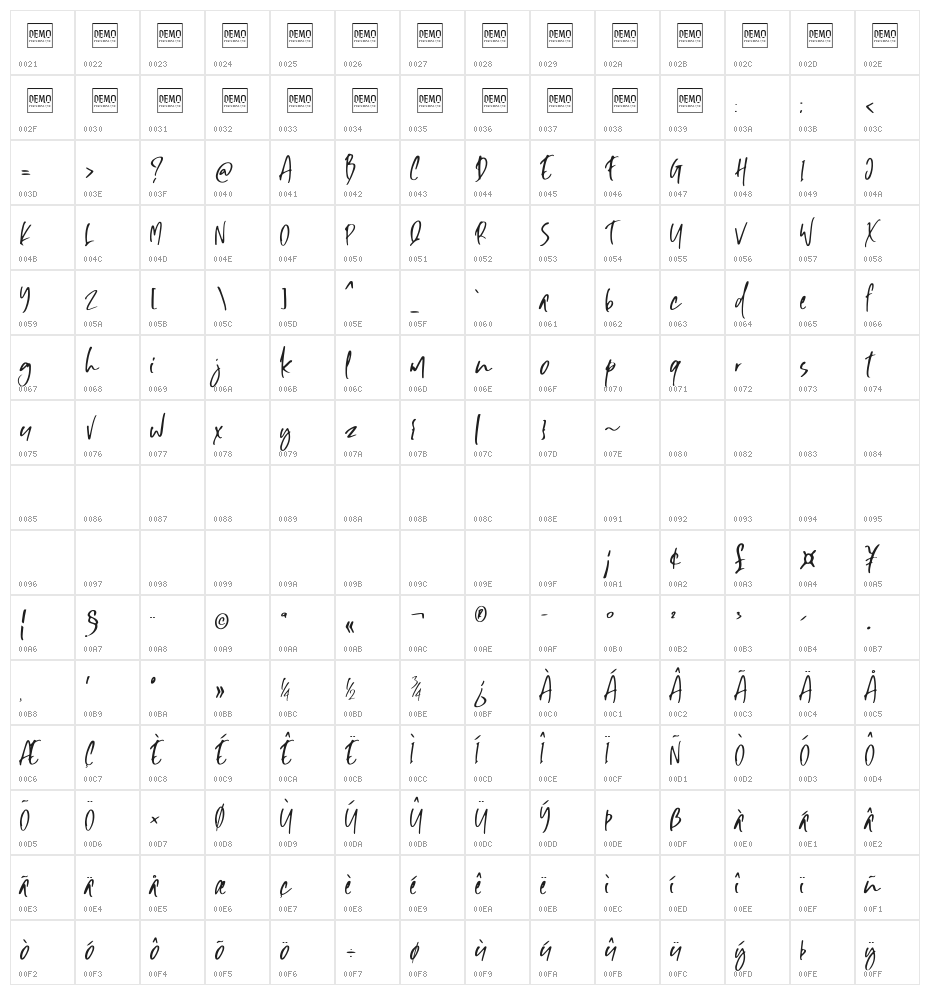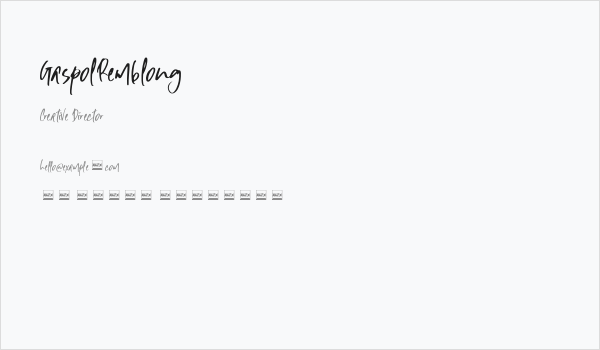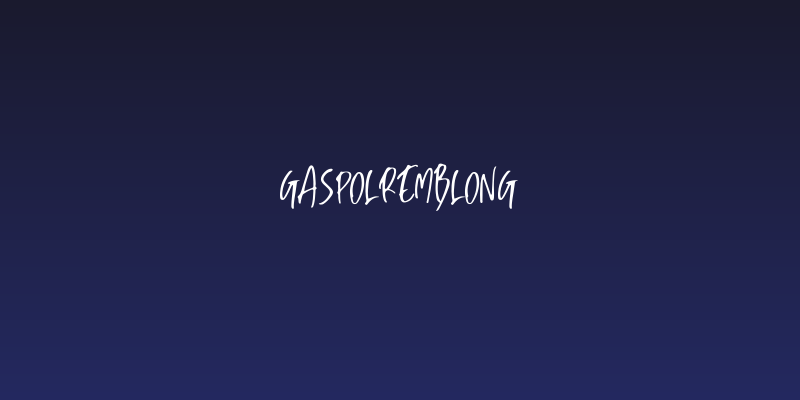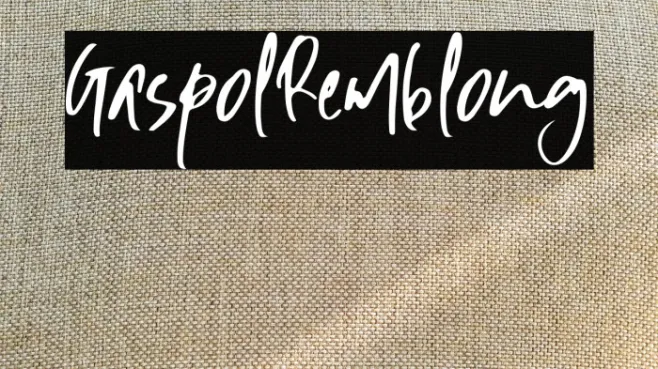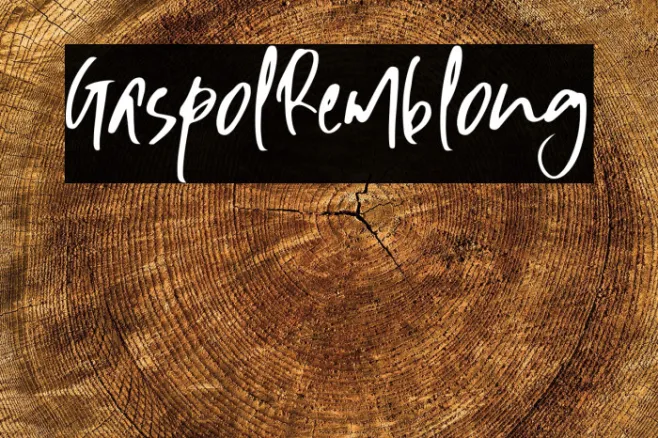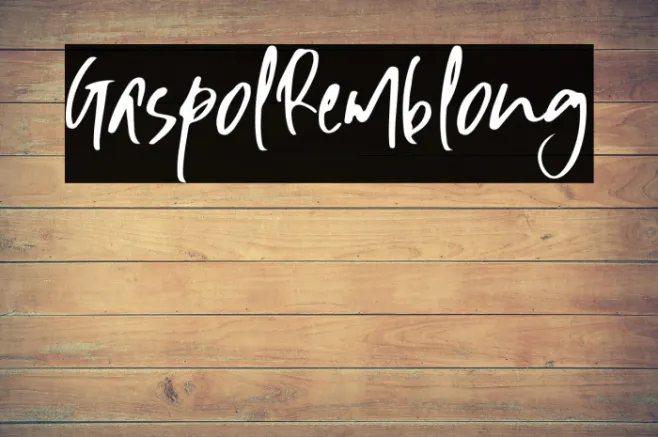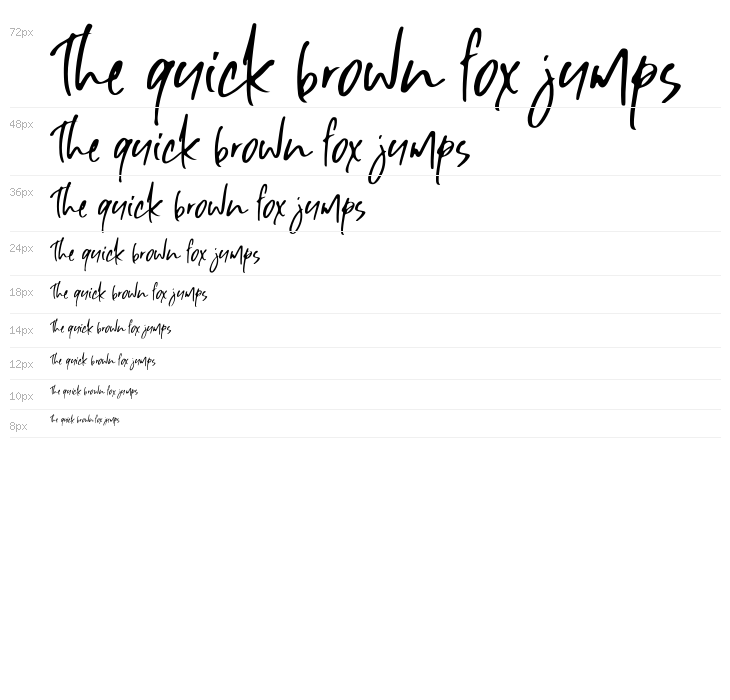
GaspolRemblong Font
GaspolRemblong Description
This font exhibits a dynamic and expressive handwritten style, characterized by its fluid and irregular strokes. The letters are crafted with a sense of motion and spontaneity, giving it a lively and personal touch. The uppercase and lowercase letters maintain a consistent style, with some characters featuring unique flourishes and loops that enhance its artistic appeal. The overall appearance is casual yet sophisticated, making it suitable for projects that require a personal or creative touch.
| Proposed Projects | Ideal for greeting cards, invitations, branding, and creative projects that require a personal touch. |